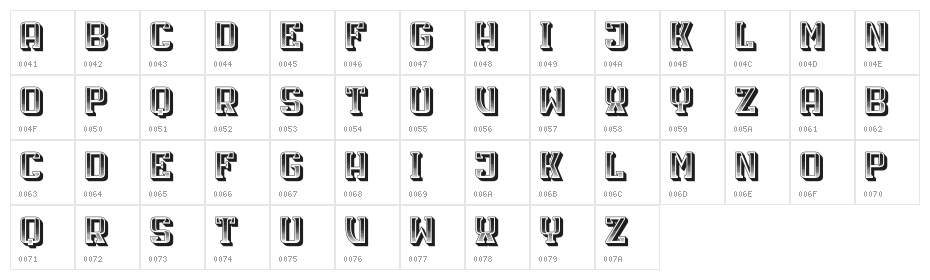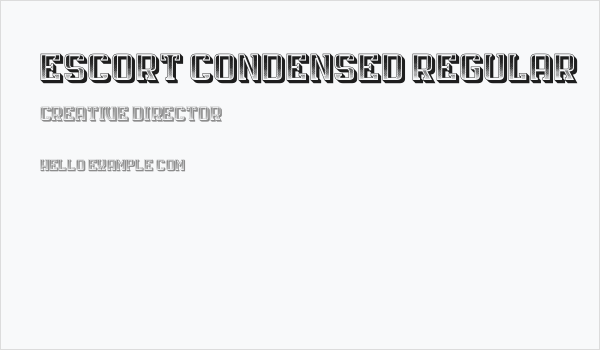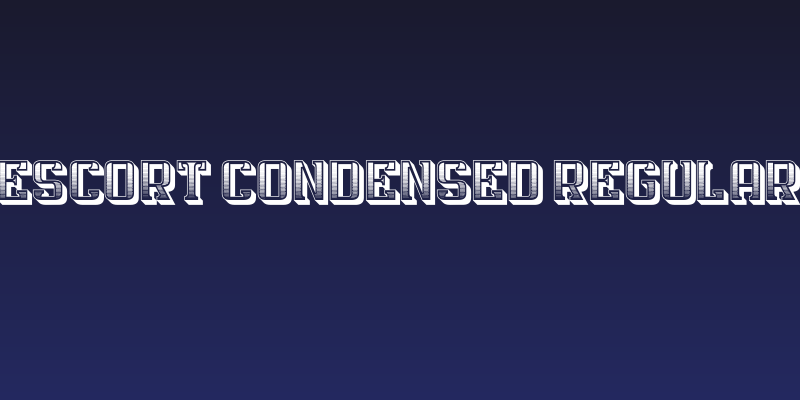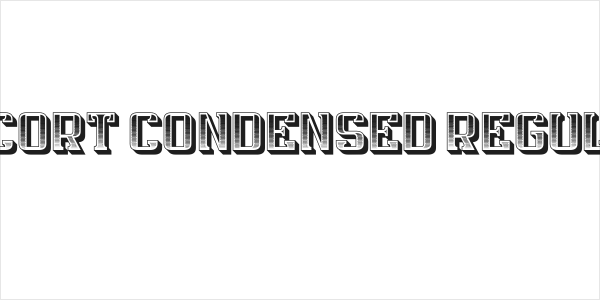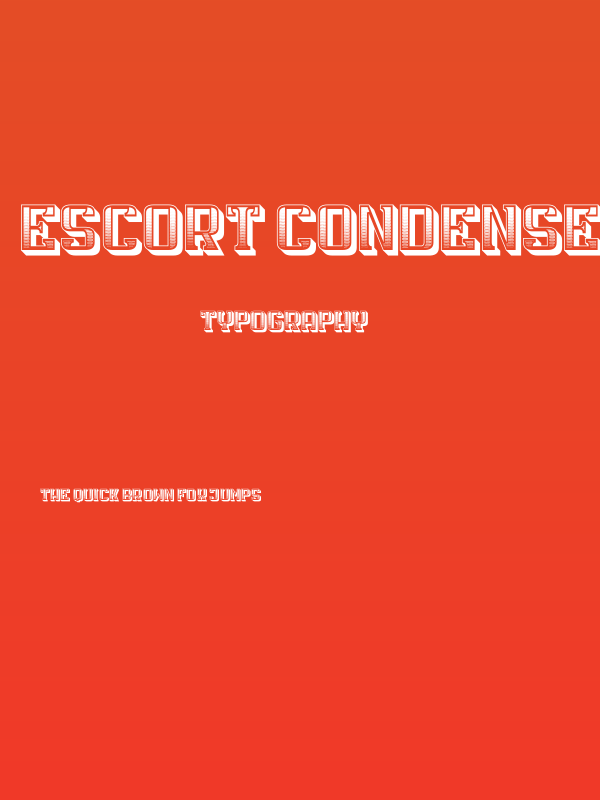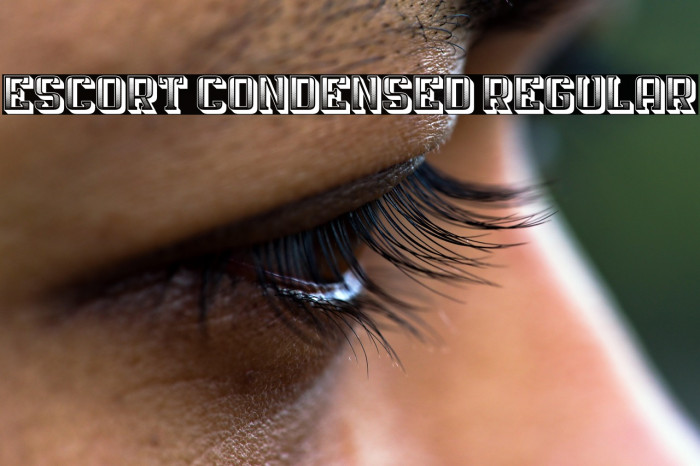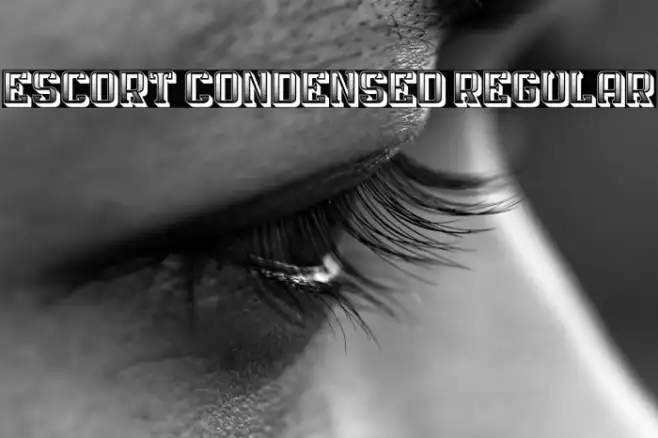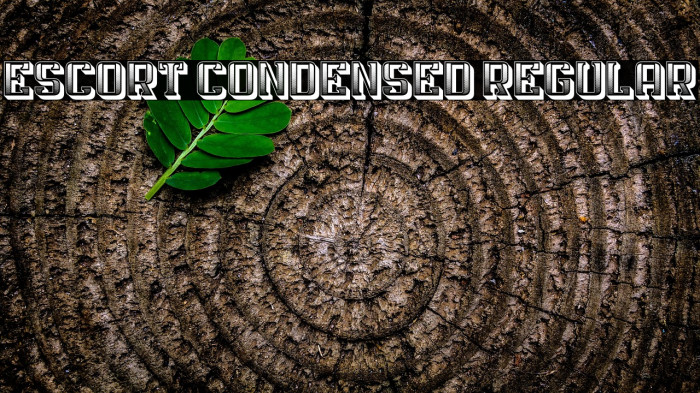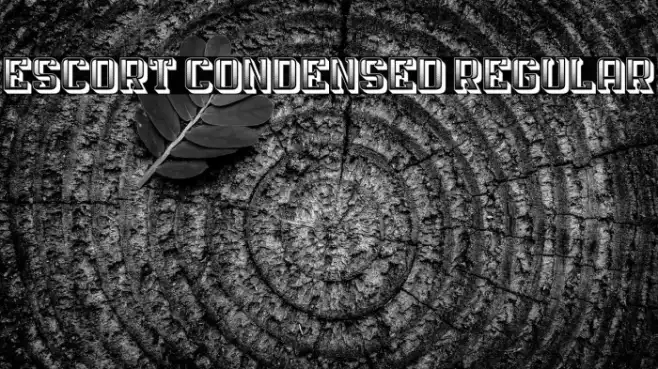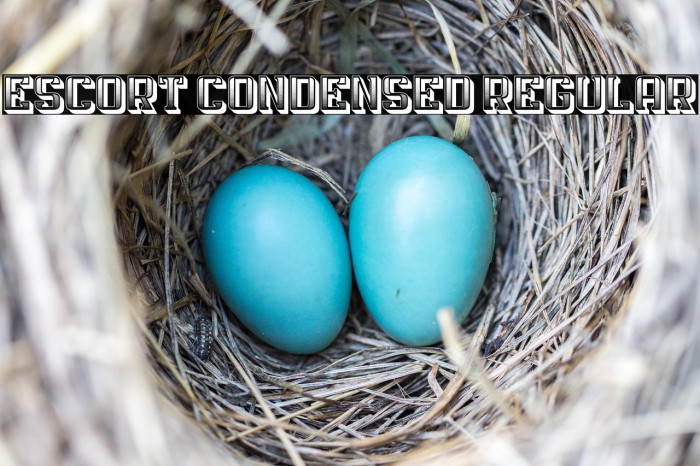
Escort Condensed Regular Font
Escort Condensed Regular Description
This font is a bold, decorative typeface with a condensed structure, featuring a unique 3D effect that gives it a striking, dimensional appearance. The letters are capitalized and exhibit a shadowed outline that enhances their visual impact. The inner detailing includes a dotted pattern, adding texture and depth. This font is designed to capture attention with its boldness and intricate design, making it ideal for standout headlines and titles. The condensed width allows for efficient use of space without sacrificing readability.
| Proposed Projects | Ideal for posters, signage, branding, and any project requiring a bold, eye-catching typeface. |